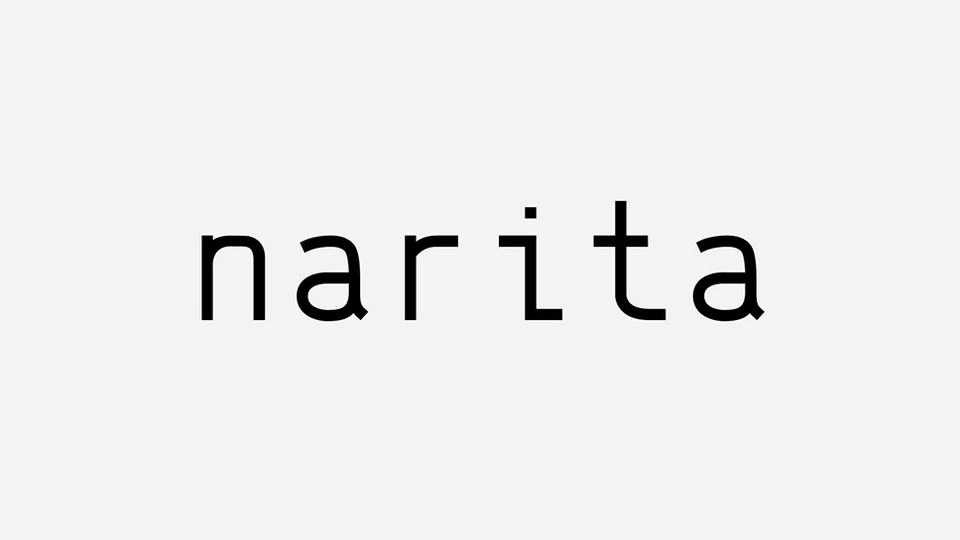
Download Narita font, a clean monospace sans serif typeface inspired by the new signage of Narita International Airport, Tokyo. Narnita font is perfect for branding, web and app design.
Designer: Kévin Magalhaes